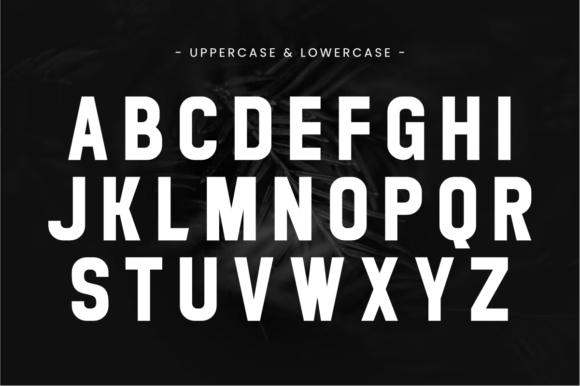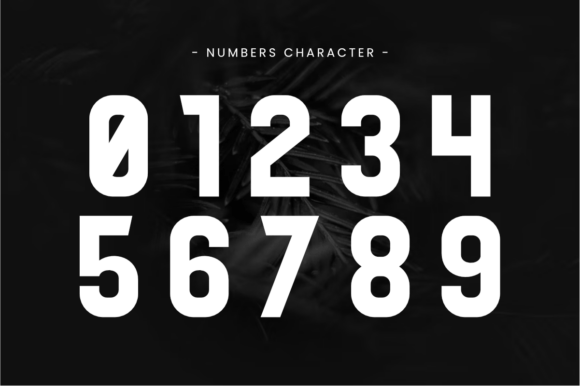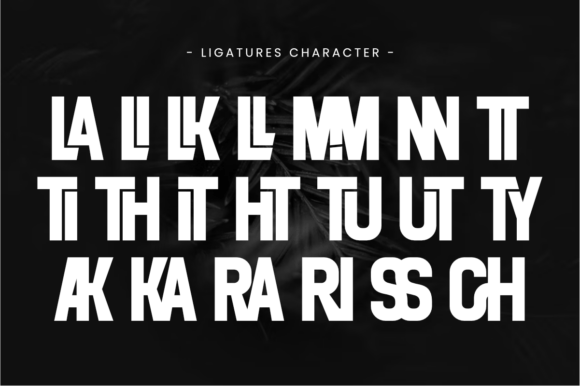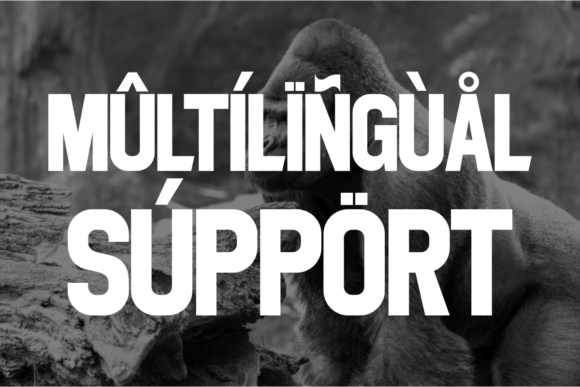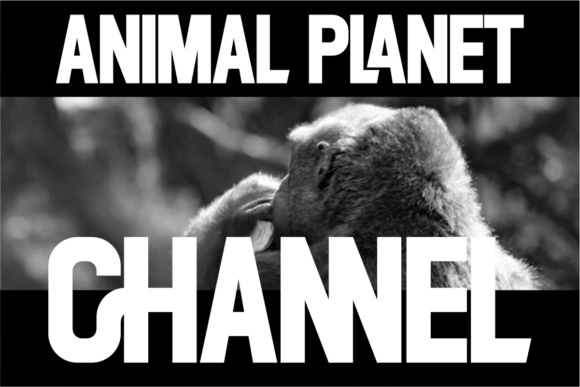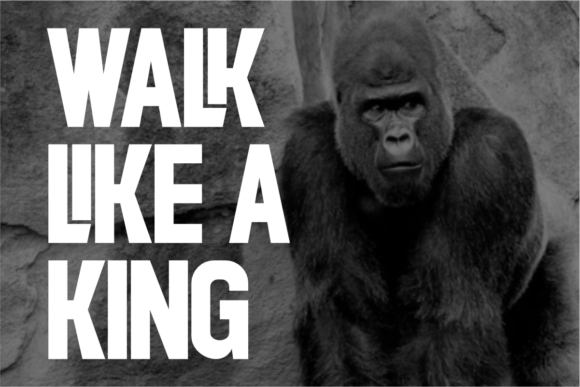
Gorila Font: Unleash Bold and Commanding Designs with this Ultra-Condensed Sans Serif Font
In the world of typography, a font can make or break a design. When it comes to creating bold and eye-catching visuals, the right font is essential. Introducing Gorila Font, an ultra-condensed sans serif font that packs a punch with its commanding strokes and modern aesthetics. In this article, we’ll dive into the features and benefits of Gorila Font, and explore how it can elevate your designs to the next level.
What is Gorila Font?
Gorila Font is a sans serif font designed with bold and commanding strokes, perfect for making a statement in any design project. Its ultra-condensed style ensures maximum impact while maintaining a sleek and professional look. With 20 unique ligatures, Gorila Font offers a range of creative possibilities for designers and crafters.
Inspiration and Design
Gorila Font is inspired by raw strength and modern aesthetics, making it perfect for designs that require a bold and edgy look. The font’s heavy condensed style is designed to grab attention and make a lasting impression. Whether you’re working on sports branding, streetwear logos, magazine covers, posters, gaming titles, or bold product packaging, Gorila Font is the perfect choice.
Key Features of Gorila Font
- Ultra-condensed sans serif font: Gorila Font is designed to be compact and bold, making it perfect for headlines and titles.
- 20 unique ligatures: Add a touch of creativity to your designs with Gorila Font’s range of ligatures.
- Bold and commanding strokes: Make a statement with Gorila Font’s bold and confident strokes.
- Modern aesthetics: Gorila Font’s sleek and modern design ensures your designs look fresh and up-to-date.
Use Cases for Gorila Font
Gorila Font is versatile and can be used in a variety of design projects, including:
- Sports branding: Create bold and dynamic logos for sports teams and events.
- Streetwear logos: Add a touch of edginess to your streetwear brand with Gorila Font.
- Magazine covers: Grab attention with Gorila Font’s bold and commanding headlines.
- Posters: Create eye-catching posters with Gorila Font’s bold and modern design.
- Gaming titles: Make a statement with Gorila Font’s bold and confident strokes in your gaming titles.
- Bold product packaging: Stand out on store shelves with Gorila Font’s bold and attention-grabbing design.
Benefits of Using Gorila Font
By using Gorila Font in your designs, you can:
- Make a bold statement: Gorila Font’s commanding strokes and bold design ensure your message gets noticed.
- Elevate your brand: Add a touch of modernity and edginess to your brand with Gorila Font.
- Increase visibility: Gorila Font’s bold and condensed style ensures your designs stand out in a crowded market.
| Font Name | Gorila Font |
In conclusion, Gorila Font is a powerful and versatile font that can elevate your designs to the next level. With its bold and commanding strokes, modern aesthetics, and range of unique ligatures, Gorila Font is perfect for designers and crafters looking to make a statement. Whether you’re working on sports branding, streetwear logos, magazine covers, posters, gaming titles, or bold product packaging, Gorila Font is the perfect choice. Try Gorila Font today and unleash your creativity!